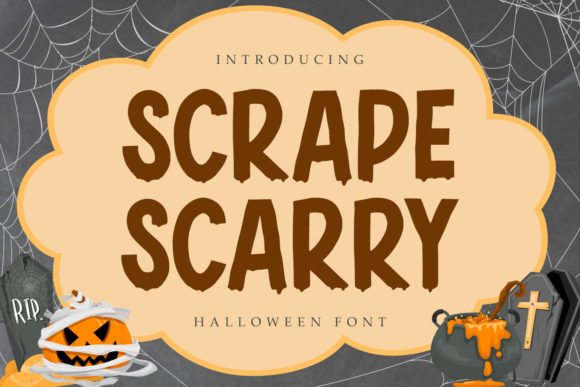
**Unleash the Spooktacular with Scrape Scarry: The Epitome of Horror and Halloween Delight**
Are you ready to send shivers down your audience's spines? Look no further than Scrape Scarry, the ultimate display font that will cast a spell on all who behold it.
Crafted by the ingenious minds at Typefar, Scrape Scarry embodies the essence of Halloween and horror. Its meticulously designed glyphs dance and drip like molten wax, evoking a sense of both fear and exhilaration. Each letter is a masterpiece of terror, adorned with jagged edges and menacing curves that will make your designs scream for attention.
Whether you're conjuring up spine-tingling movie posters, designing chilling T-shirts, or adding a touch of the supernatural to your Halloween crafts, Scrape Scarry is your go-to font. Its versatility knows no bounds, allowing you to cast a spell on any project that begs for a touch of the macabre.
With Scrape Scarry at your disposal, you'll become the master of spine-chilling designs that will haunt the minds of your audience long after the night has ended. So embrace the darkness, let your imagination run wild, and watch as Scrape Scarry transforms your creations into the stuff of nightmares—in the best possible way.
**Embrace the Spooktacular with Scrape Scarry: The Font That Will Haunt Your Designs**